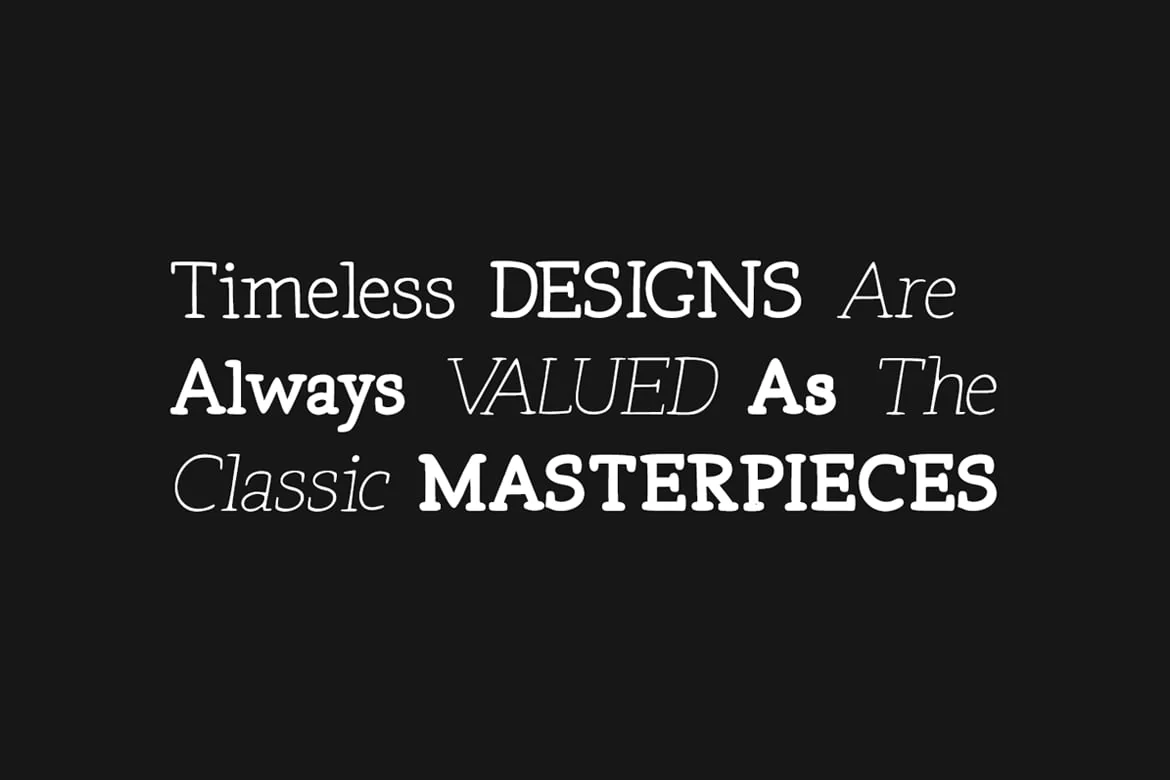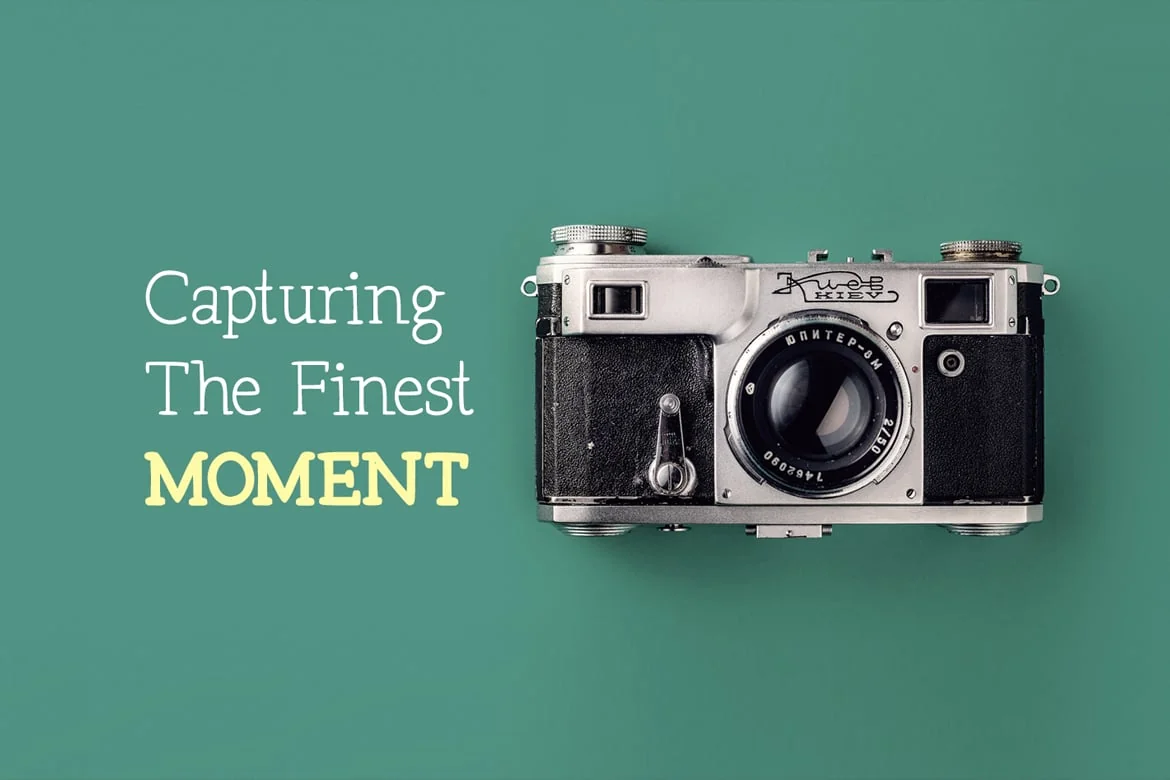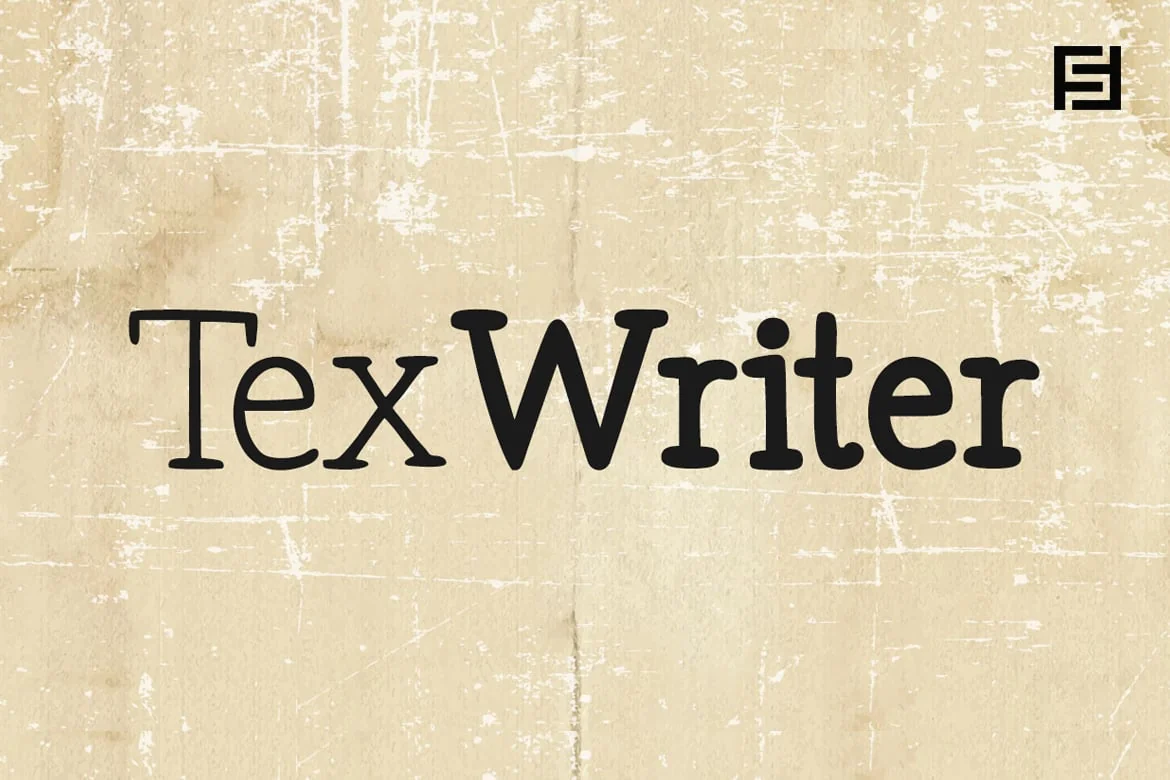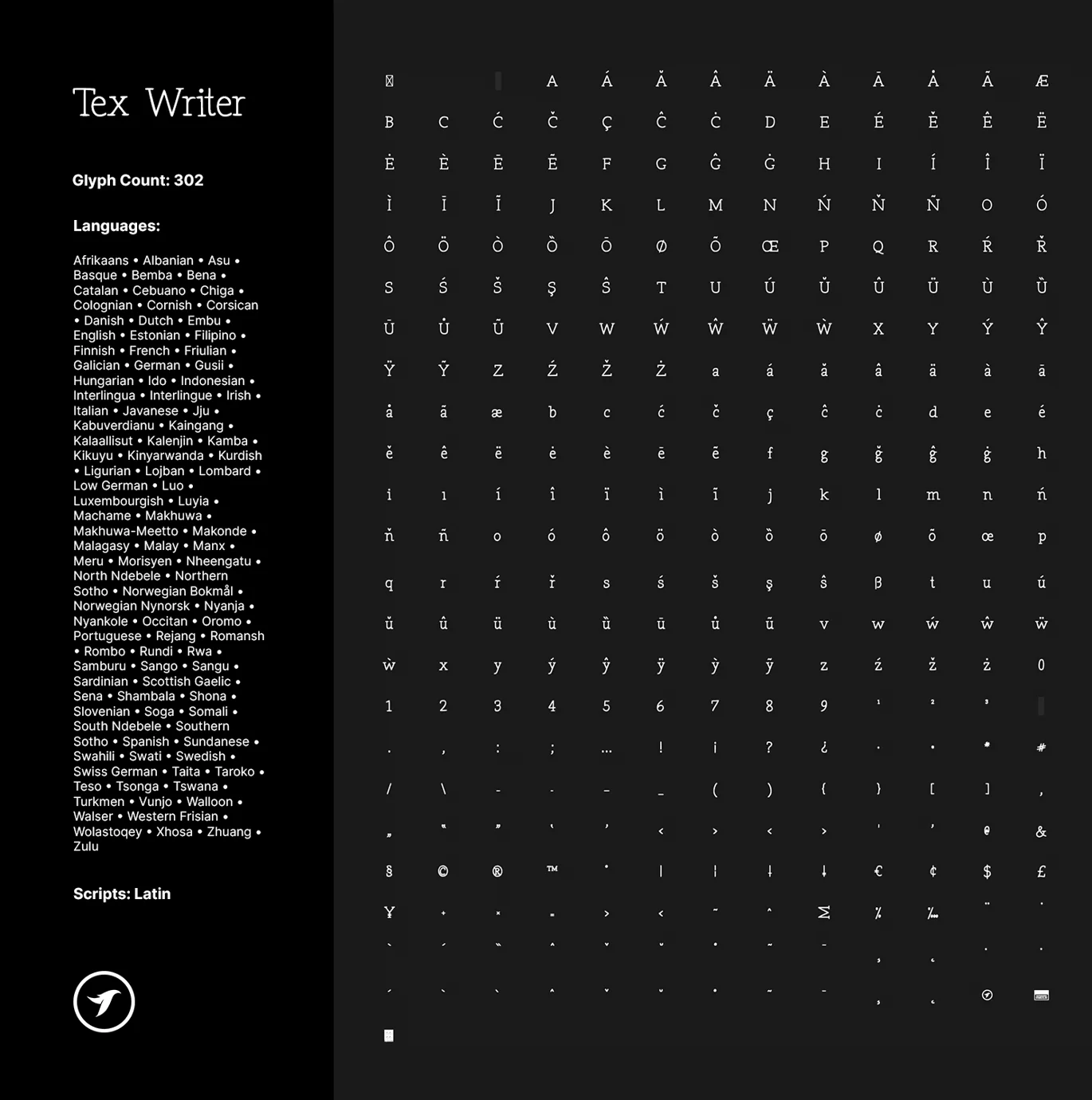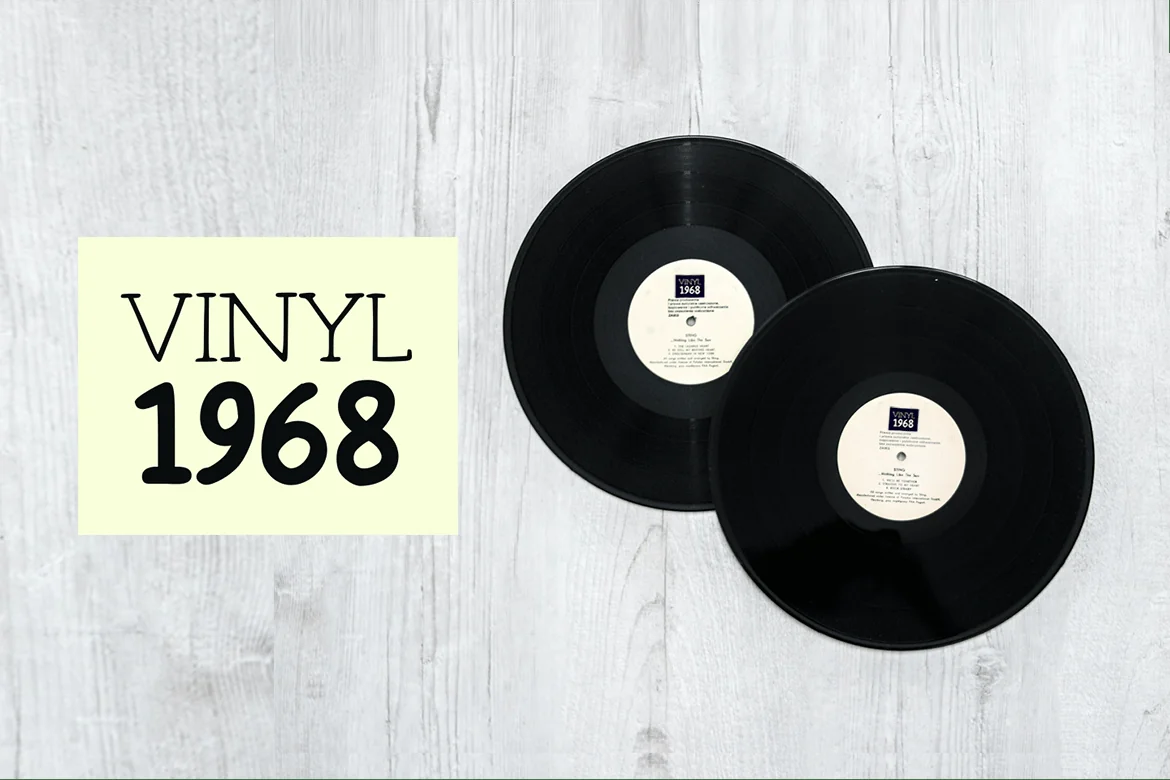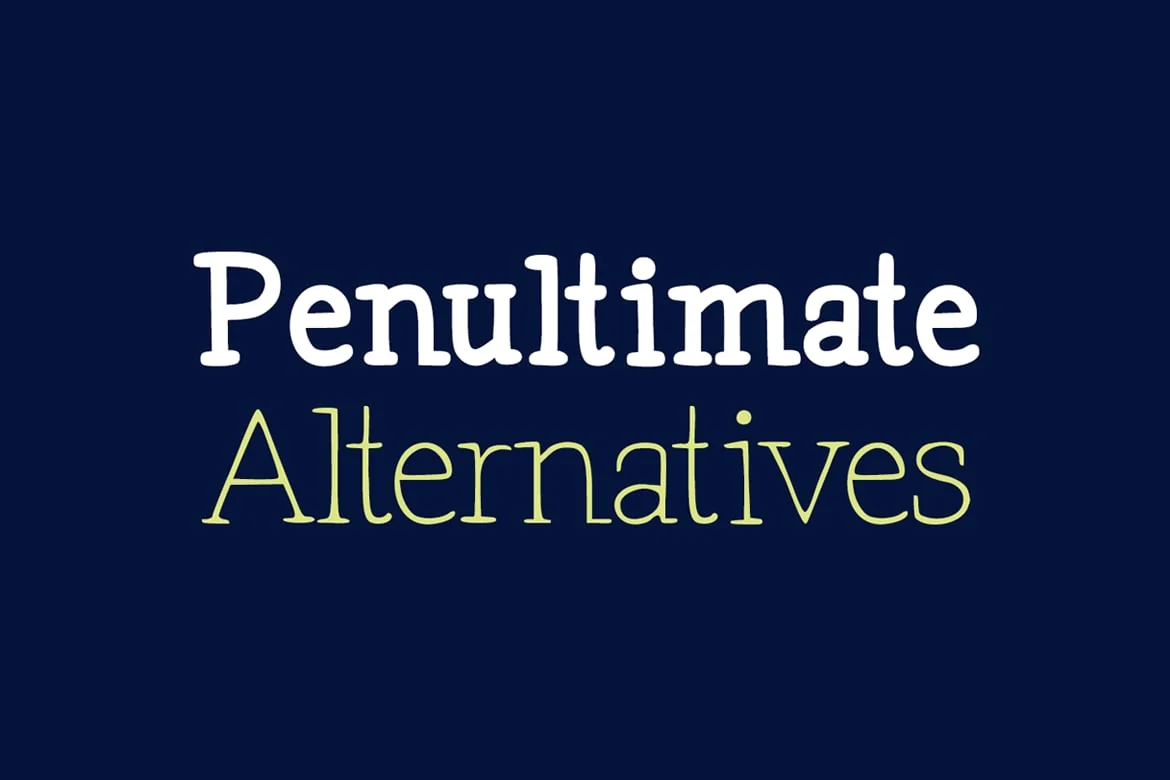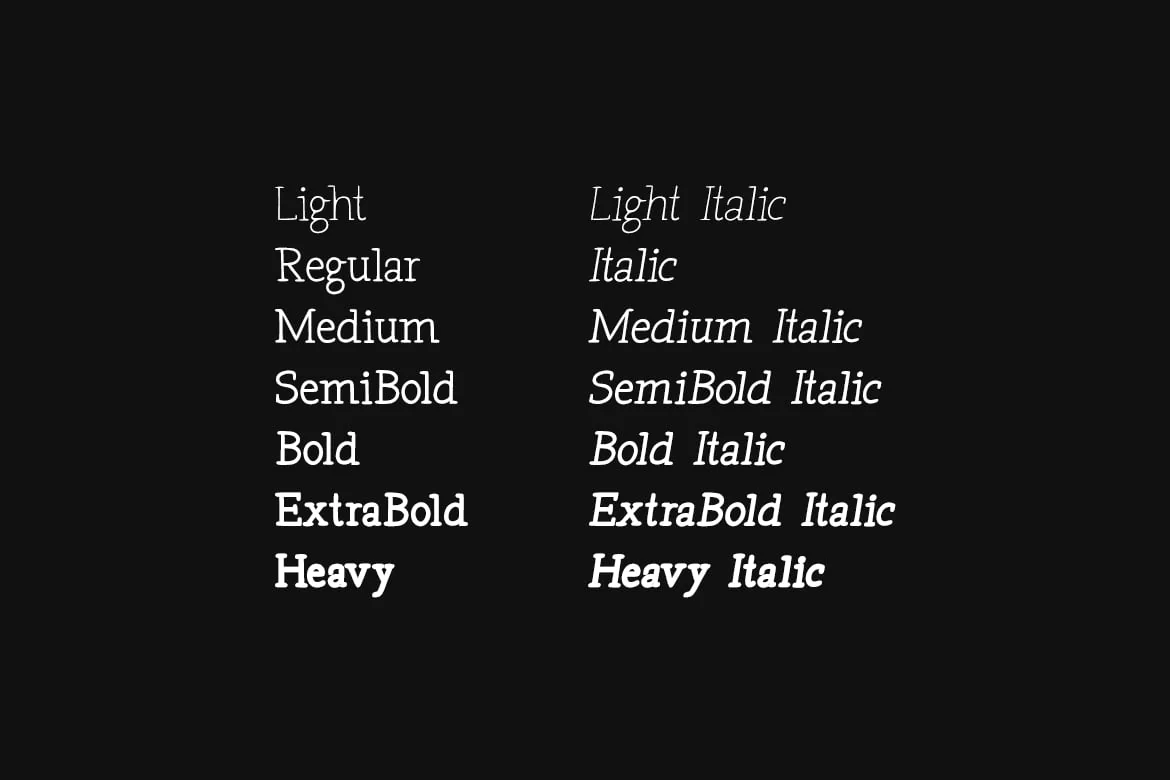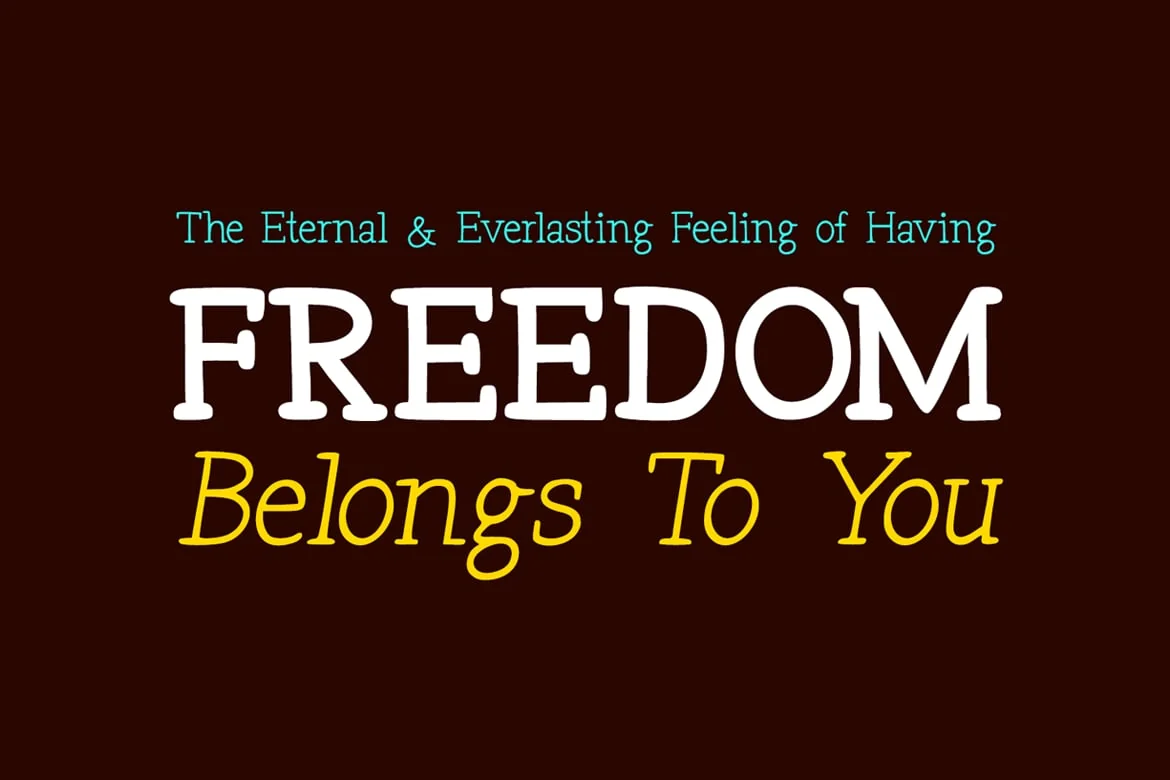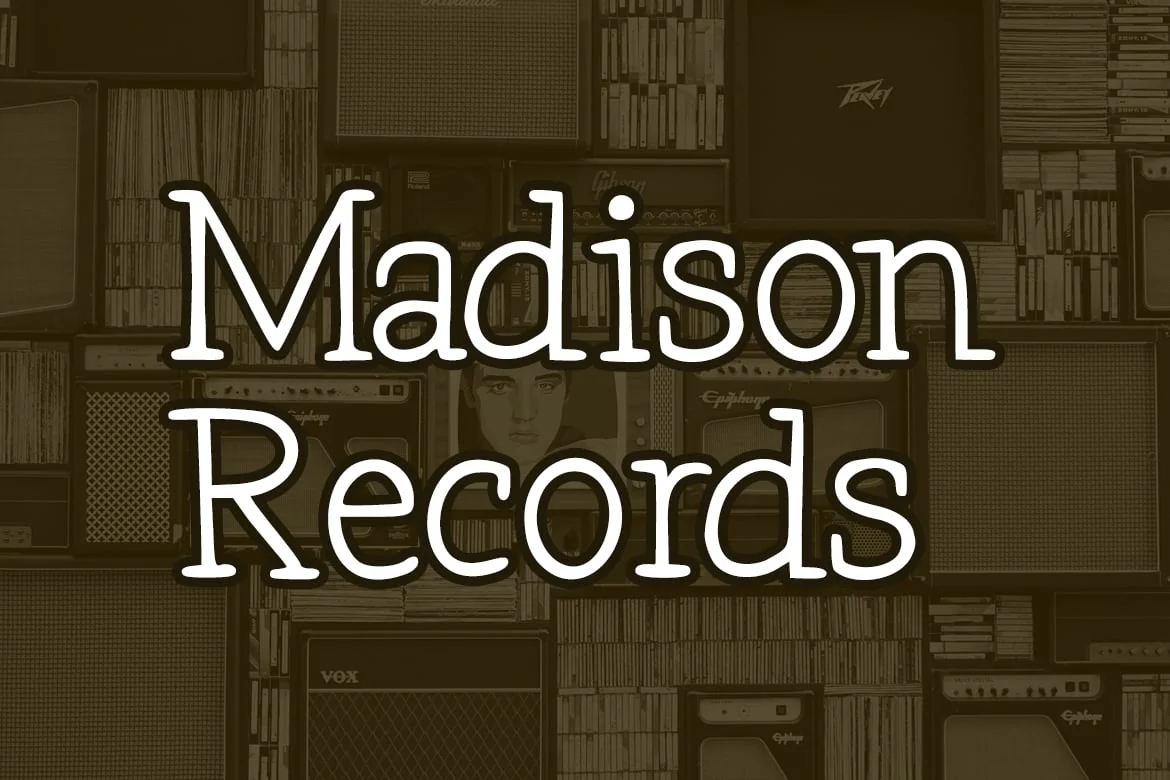
Tex Writer – Casual Handwritten Serif Typeface
Tex Writer is a custom handmade/handwritten Serif typeface with a simple and casual personality making it perfect for text typography, logotypes, marketing graphics, display, branding, package and advertisement design and anything in between.
Extended Character Sets
Each weight includes extensive language support with Western European, Central European, and South Eastern European sets. A total of 302 glyphs are available — Latest version 2.0 (17 August 2024)
A typeface designed by Lis at Designova.